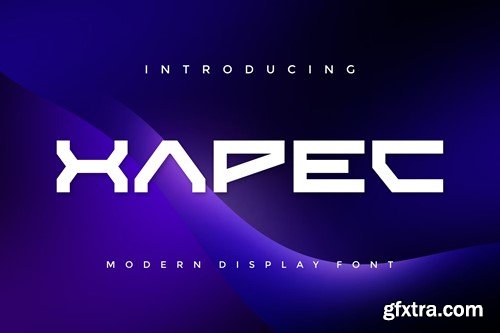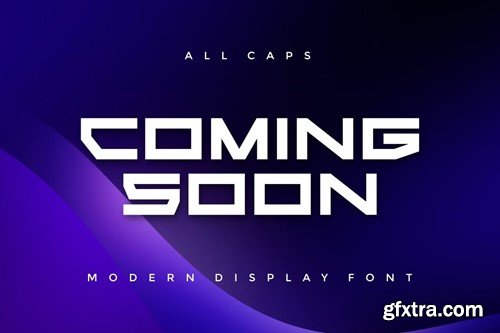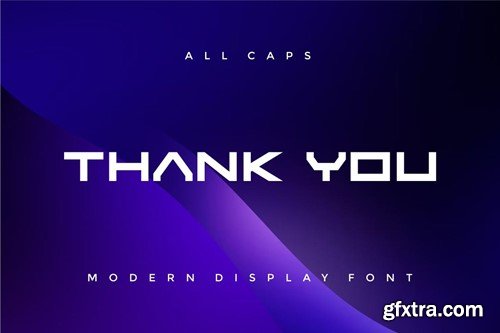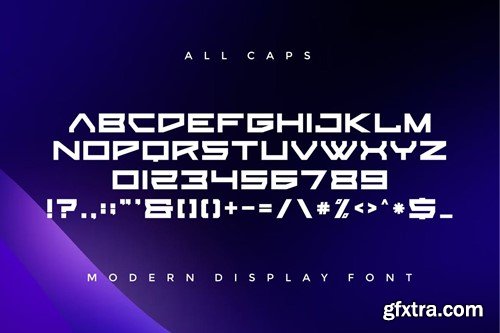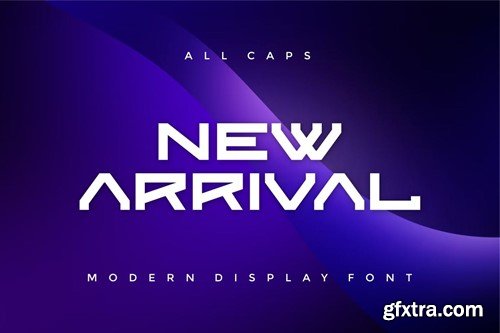
Xapec - 现代(display)字体 F5QKQS9
Xapec - Modern Display Font
Introducing our new product Xapec - Modern Display Font Xapec is a bold, modern display font with playful flair, ideal for attention-grabbing headlines, logos, and diverse design projects. Versatile and readable in both digital and print, Xapec adds a dynamic touch to your message. availlable